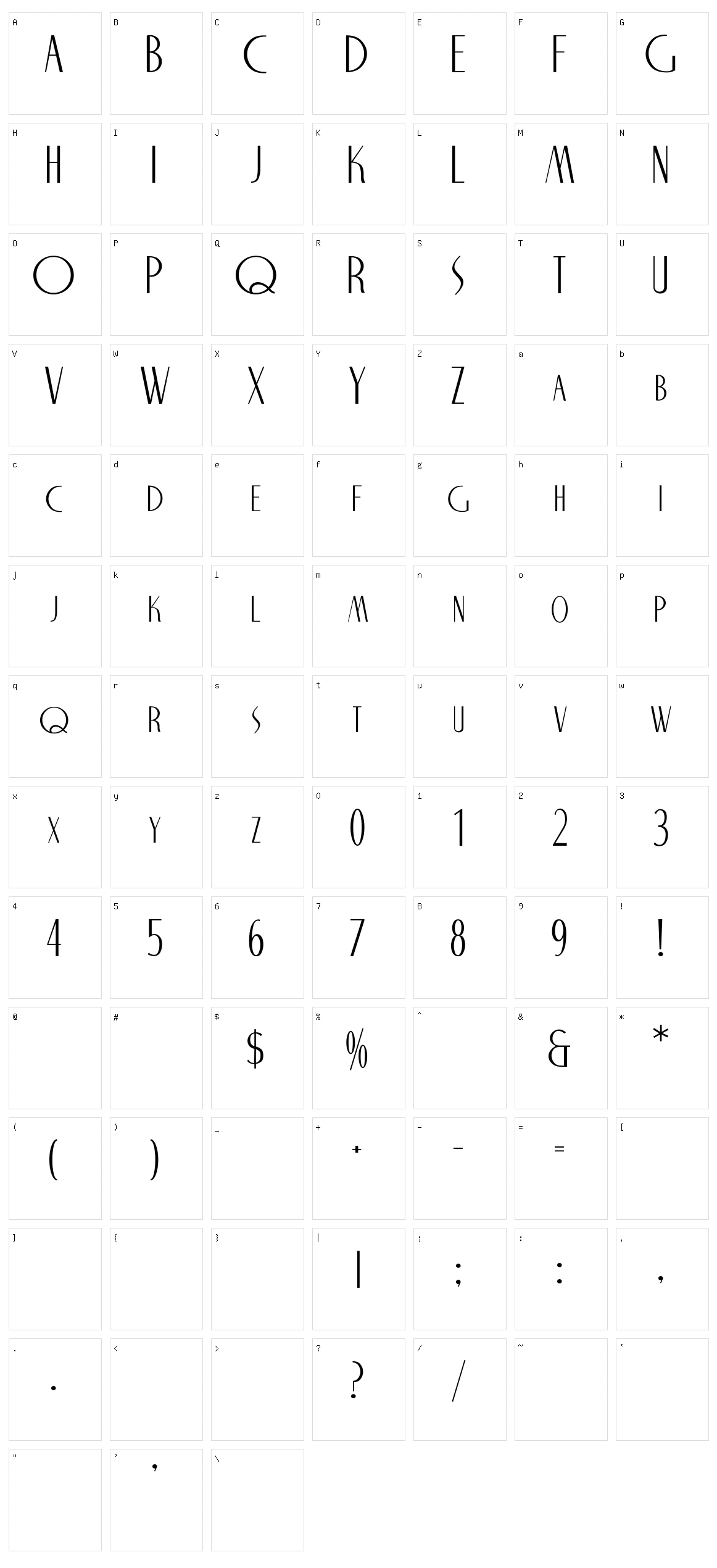
Nite Club
Designed by: Thomas E. Harvey
History of the Fonts (for those people are avoiding real work by continuing to read.)
I'm a graphic designer by profession. And I do a few other things too, in the marketing area. But in the early '90s, when most of the fonts were created, I was primarily a designer. With the projects that I was creating, I kept having the need for a new font, or an old alphabet design that had never been digitized. So, I found a way to create PostScript and Windows fonts using an earlier version of CorelDraw. Later I graduated to professional font design software.
I "created" every one of the fonts, character by character. But I didn't necessarily create the "designs" of the characters or the alphabets. Many of the designs came from old Victorian alphabet showing books. Many were completely original like DingMaps. (Well, okay, I designed that font, but the geographic shapes of states and continents did not originate with me.) None of the designs, mine or derivative, had, to my knowledge, been digitized by anyone up to that time. Many designs are still unique to my fonts.
It was fun doing them, for the most part, and I'm glad that people find benefits in the fonts. I've often told people that I believe that when I'm dead and gone, my lasting legacy will be the fonts, still able to be Googled under my name, downloaded, and used in projects all over the world. It may be a virtually anonymous legacy, but it's lasting longer than I originally expected.